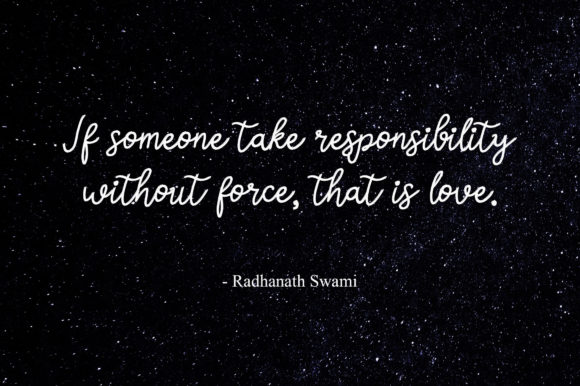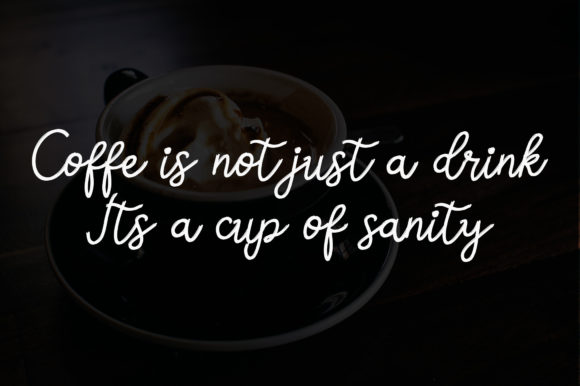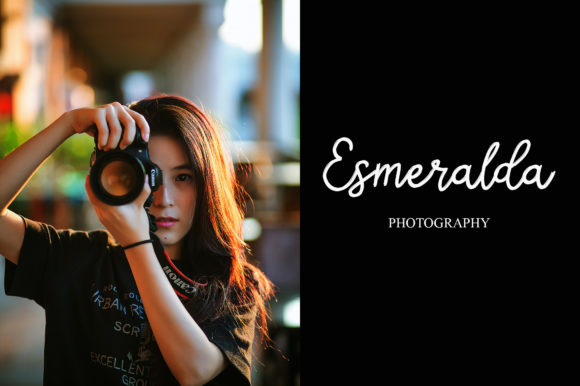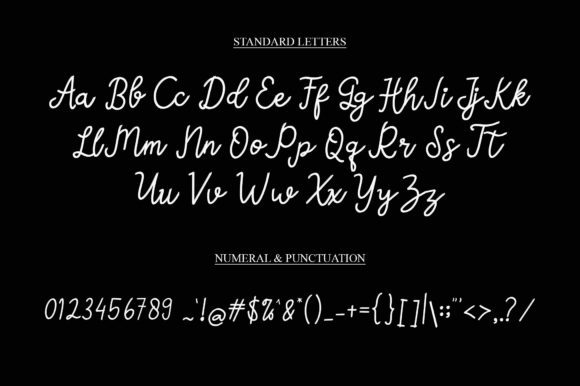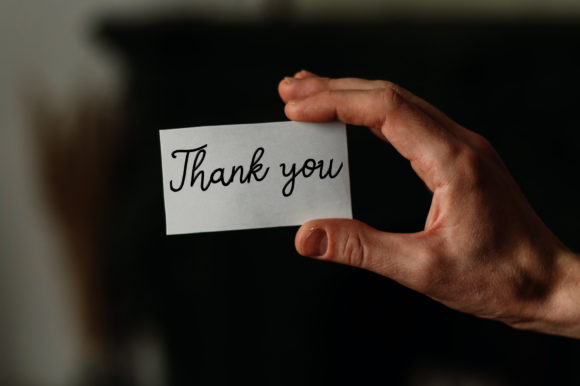
Introducing Ball Moon Font: Elevate Your Designs with a Modern Cursive Script
In the world of typography, fonts play a crucial role in conveying the tone and personality of a brand or design. For designers and crafters looking for a unique and modern script font, Ball Moon Font is an excellent choice. This stunning cursive brushed script font is perfect for adding a touch of elegance and sophistication to your branding and digital designs.
What is Ball Moon Font?
Ball Moon Font is a beautifully crafted cursive script font that boasts an authentic, modern look. Its unique blend of classic script elements and modern brush strokes makes it an ideal choice for designers seeking a font that stands out from the crowd. With its fluid, connected letters and varying line widths, Ball Moon Font exudes a sense of creativity and playfulness.
Key Features of Ball Moon Font
- Authentic, modern look: Ball Moon Font’s unique design combines traditional script elements with modern brush strokes, giving it a fresh and contemporary feel.
- Cursive brushed script: The font’s cursive, connected letters and varying line widths create a sense of movement and fluidity, perfect for adding a touch of elegance to your designs.
- Perfect for branding and digital designs: Ball Moon Font is designed to help you create stunning branding and digital designs that stand out from the competition.
- Endless possibilities: With Ball Moon Font, the creative possibilities are endless. Use it for logos, social media graphics, website headers, and more.
Why Choose Ball Moon Font?
There are many reasons why Ball Moon Font is an excellent choice for designers and crafters. Here are a few:
- Unique and distinctive: Ball Moon Font’s modern cursive script design makes it a standout from more traditional fonts.
- Versatile: This font is perfect for a wide range of design applications, from branding and advertising to digital graphics and crafts.
- Elegant and sophisticated: Ball Moon Font adds a touch of elegance and sophistication to any design, making it perfect for high-end brands and luxury products.
How to Use Ball Moon Font in Your Designs
Using Ball Moon Font in your designs is easy. Here are a few ideas to get you started:
- Logos and branding: Use Ball Moon Font to create a unique and memorable logo for your brand.
- Social media graphics: Add a touch of elegance to your social media graphics with Ball Moon Font.
- Website headers: Use Ball Moon Font to create stunning website headers that grab attention.
- Crafts and DIY projects: Ball Moon Font is perfect for crafters and DIY enthusiasts looking to add a personal touch to their projects.
| Font Name | Ball Moon Font |
| Author | najmustsaqib.creator |
In conclusion, Ball Moon Font is a stunning cursive brushed script font that is perfect for designers and crafters looking for a modern and elegant font. With its authentic, modern look and endless creative possibilities, Ball Moon Font is an excellent choice for anyone looking to elevate their designs. So why wait? Download Ball Moon Font today and explore its endless possibilities!